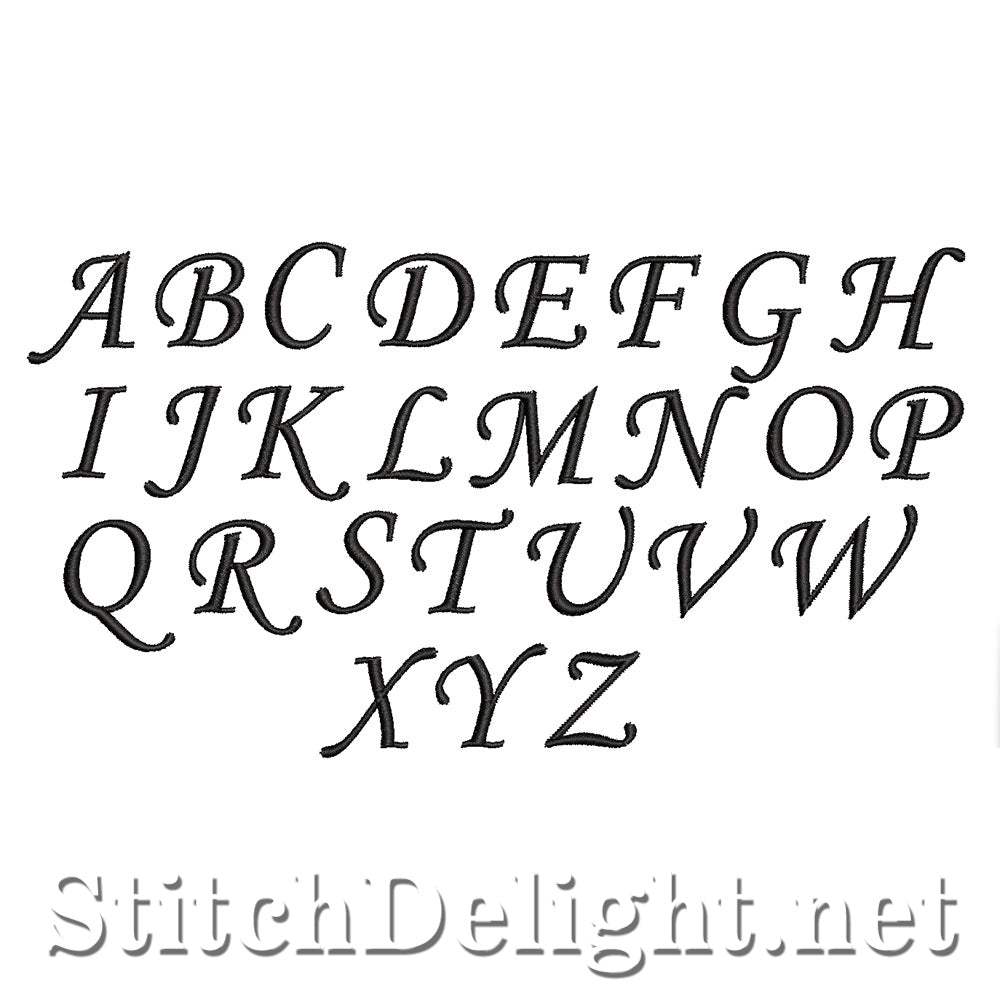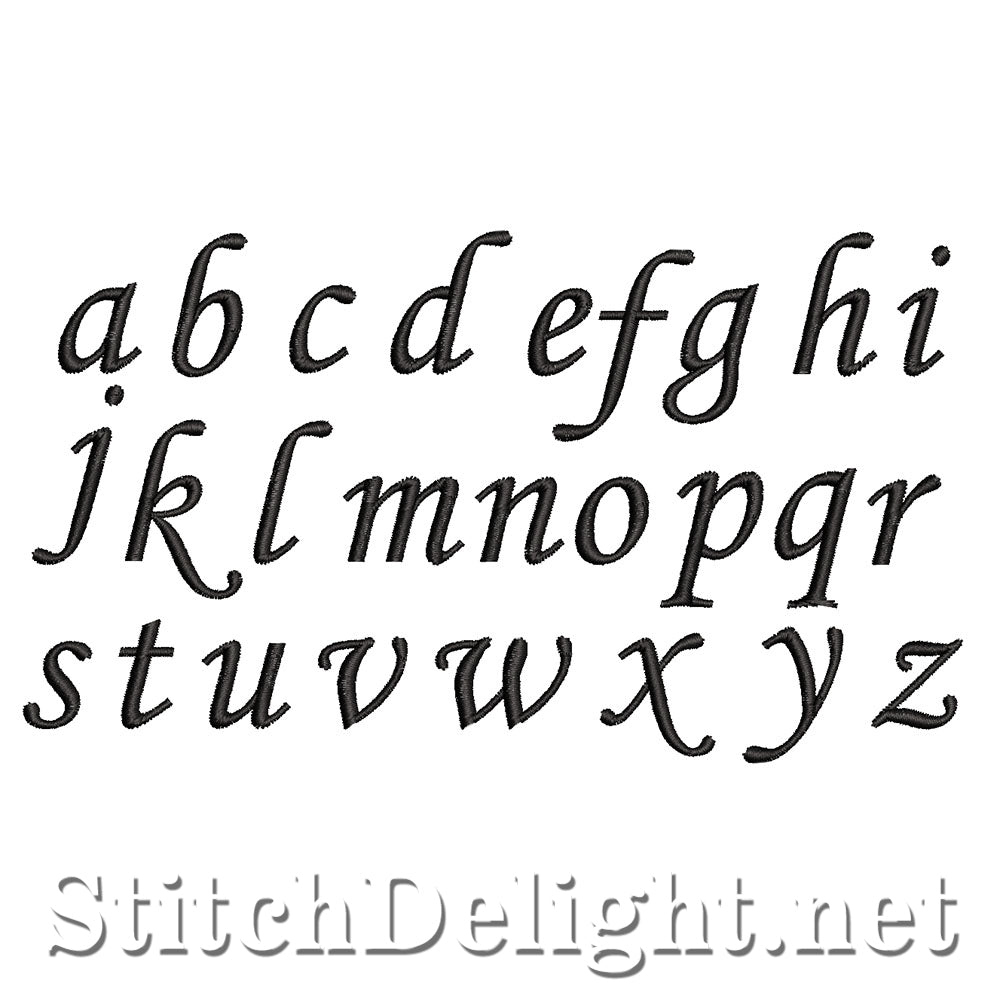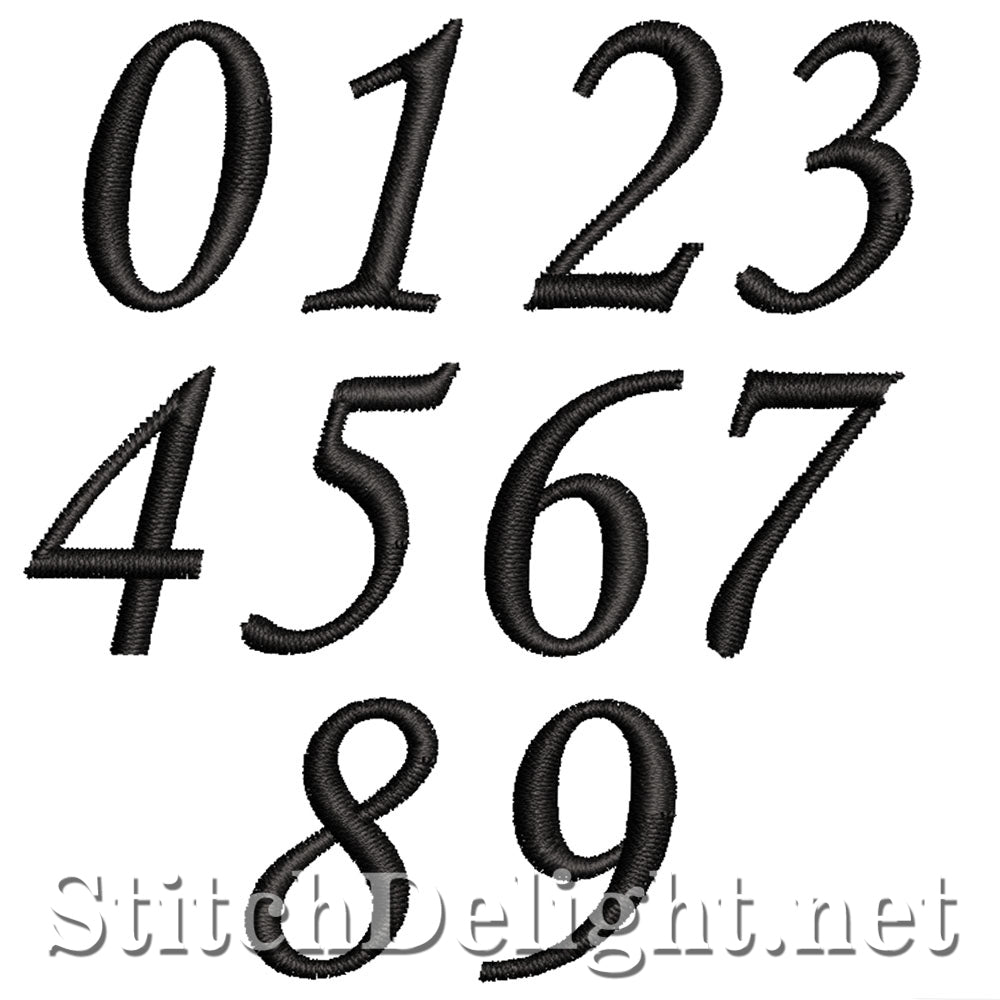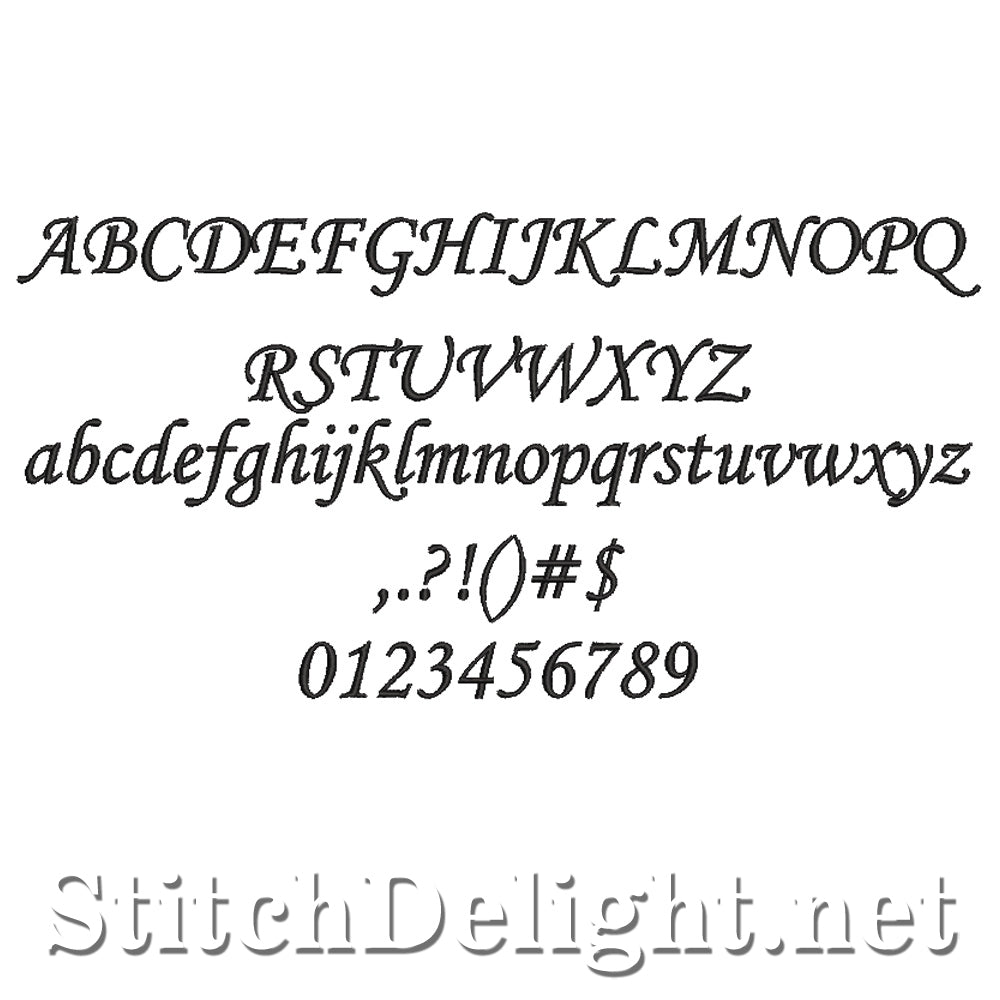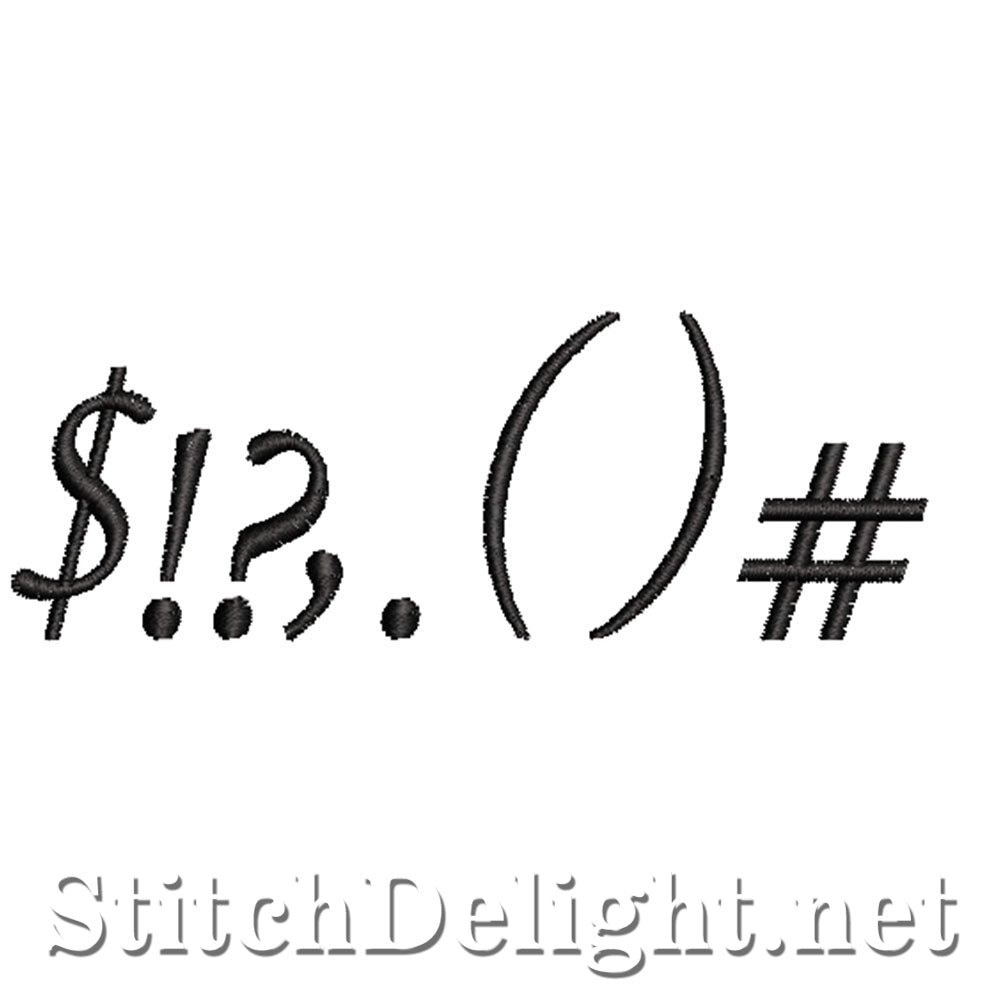
This is the matching font for Blossom Font SDS3217 and fits in a 4x4" hoop and is suitable for all fabric types using the correct stabilizer, make your design Blossom with this elegant colorful and friendly font! This font has an average height of 1"